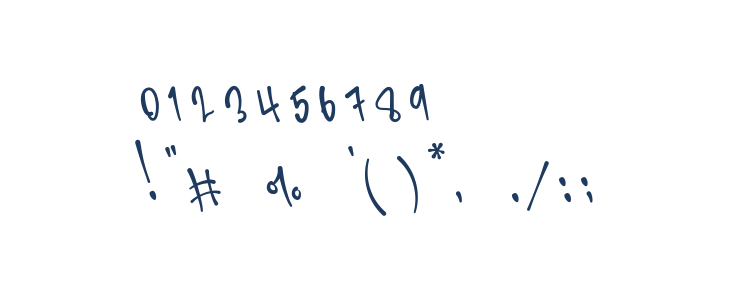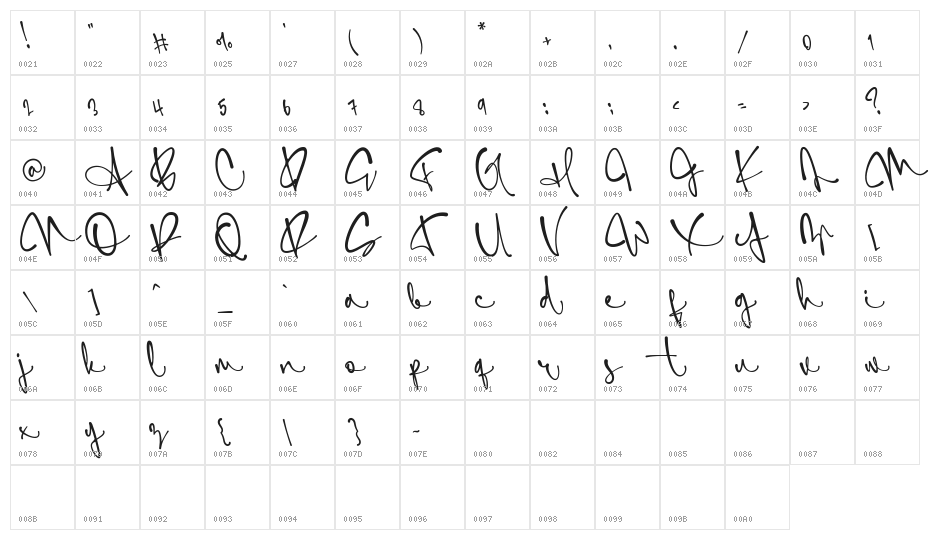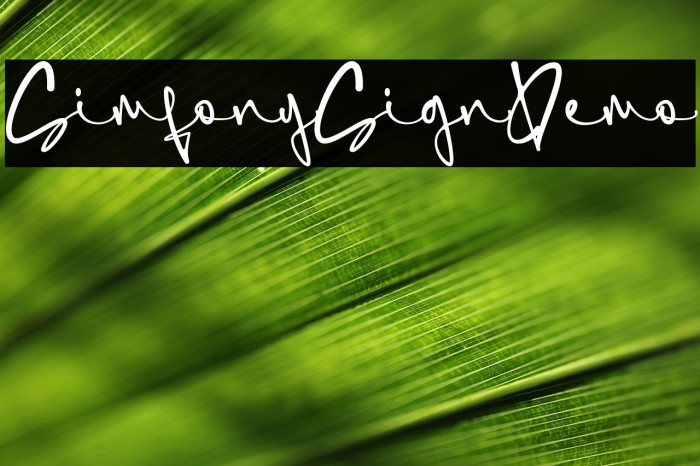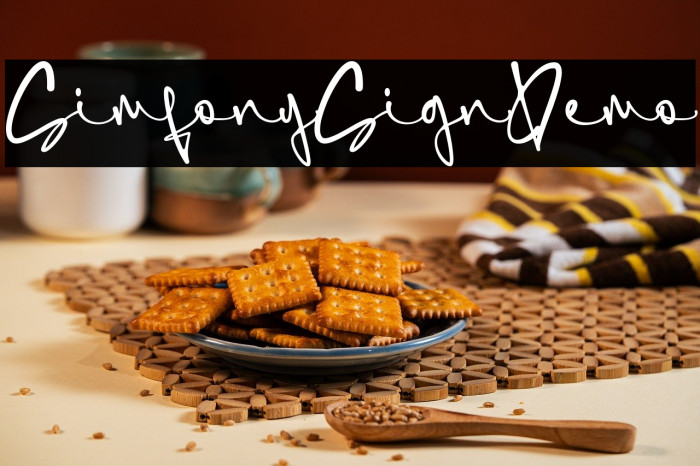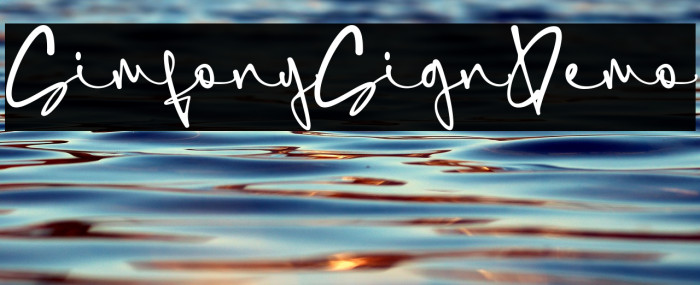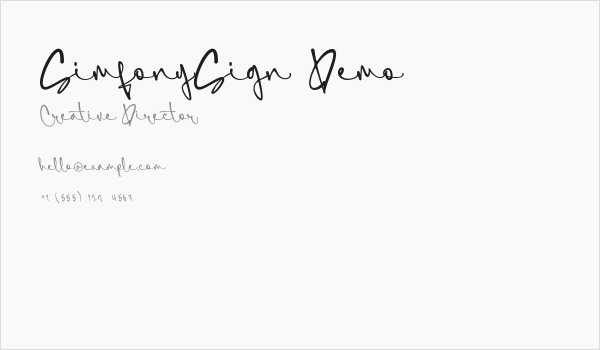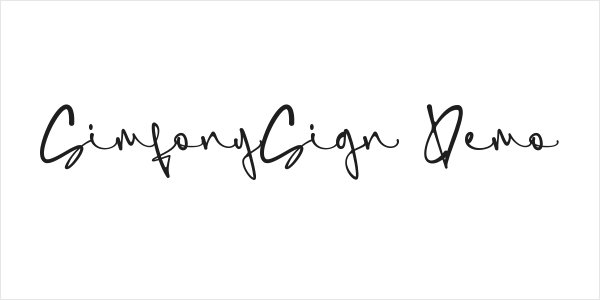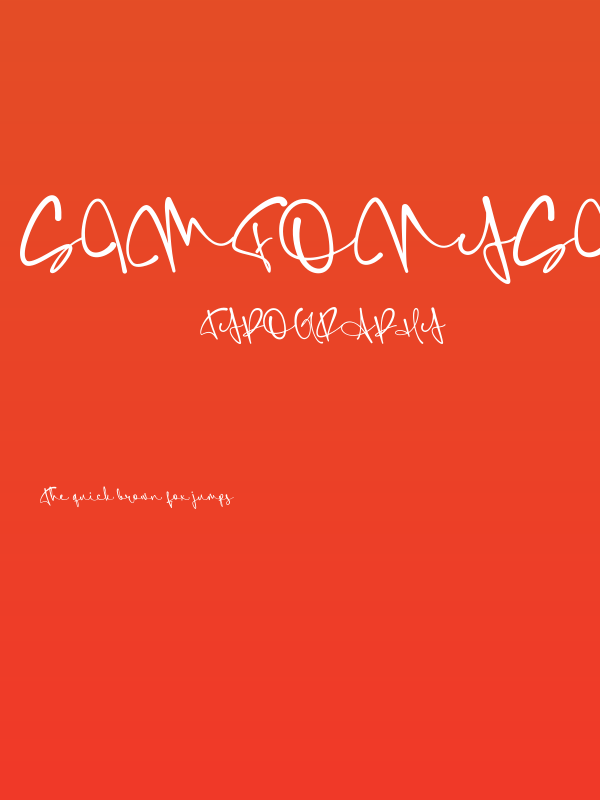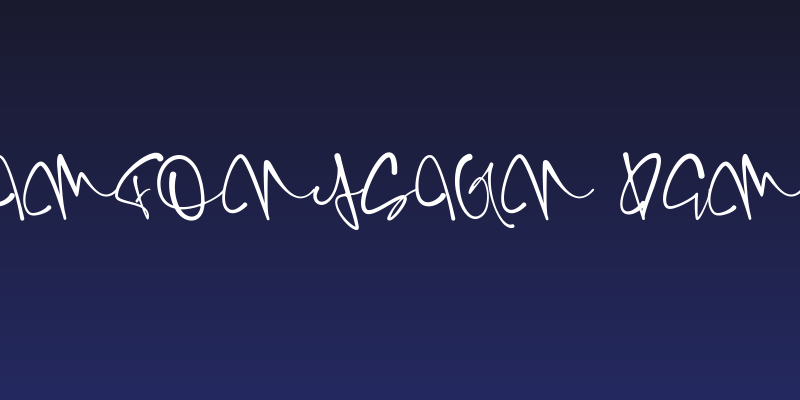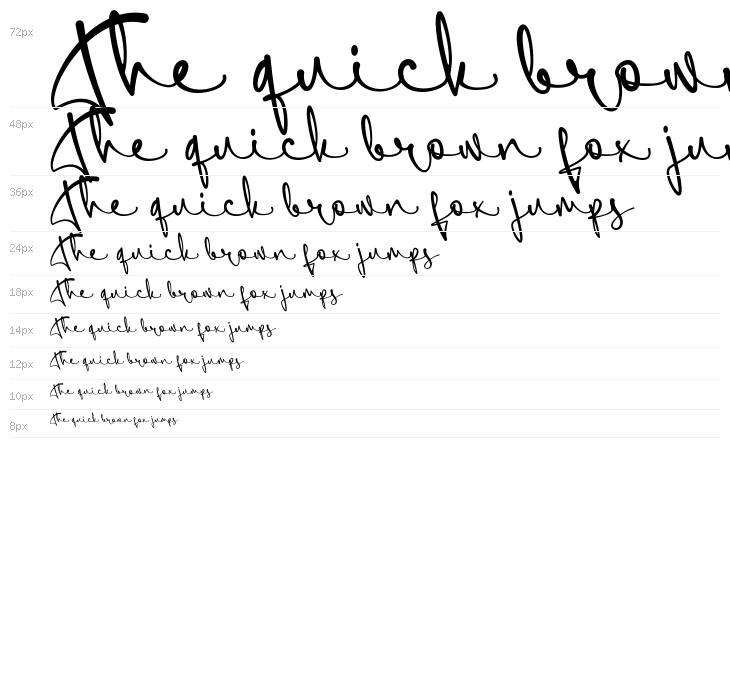
SimfonySign-Demo Font
SimfonySign-Demo Description
This font exhibits a lively and expressive handwritten style, characterized by its fluid and dynamic strokes. The letters are interconnected with a natural flow, giving it an authentic cursive appearance. The uppercase letters are bold and prominent, while the lowercase letters maintain a consistent, smooth rhythm. Numbers and special characters are crafted with the same attention to detail, ensuring a cohesive look across all elements. The overall aesthetic is playful yet elegant, making it suitable for creative and informal applications.